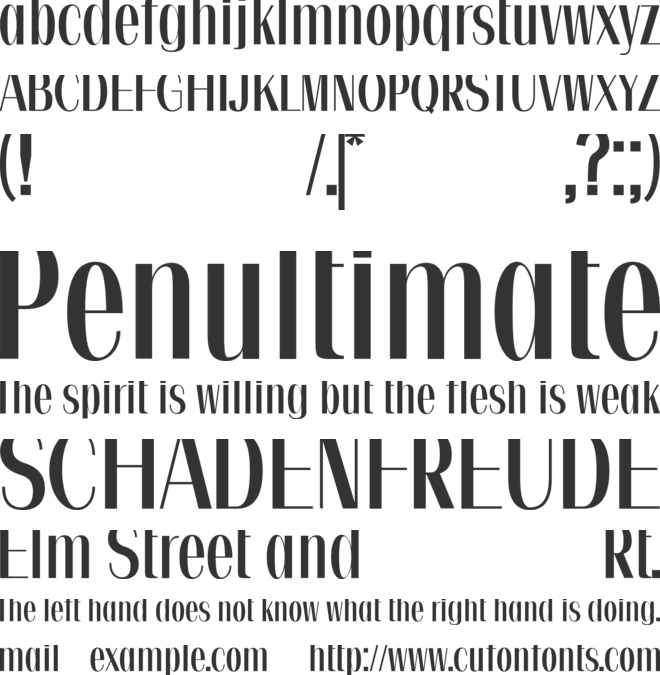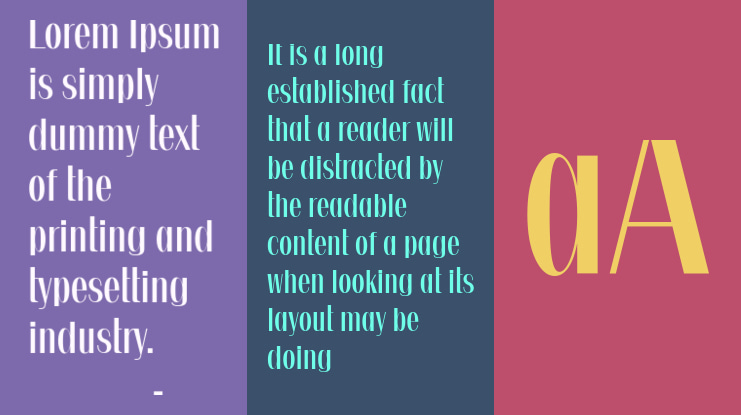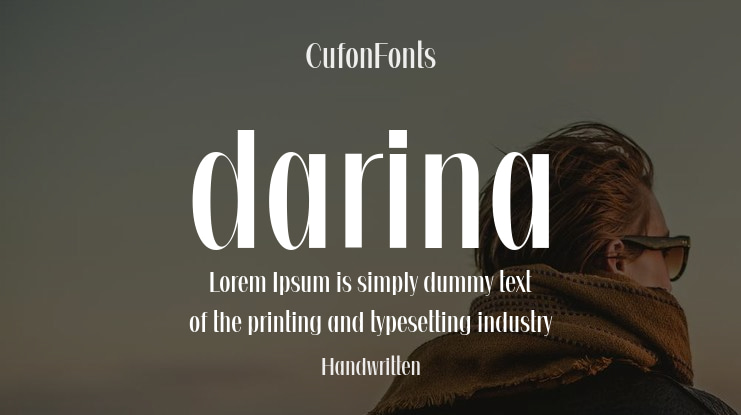
darina Font
🎨 Font Name: Darina by Minimalist Art Studio
🎨 Font Description: Darina is a delicate sans serif with soft geometry and multilingual support, perfect for branding, lifestyle, and editorial design.
βœ” Complete Latin set + multilingual diacritics
βœ” Alternates, stylistic sets & ligatures
βœ” Numbers, small caps, and extended punctuation
βœ” Bonus italics and family styles